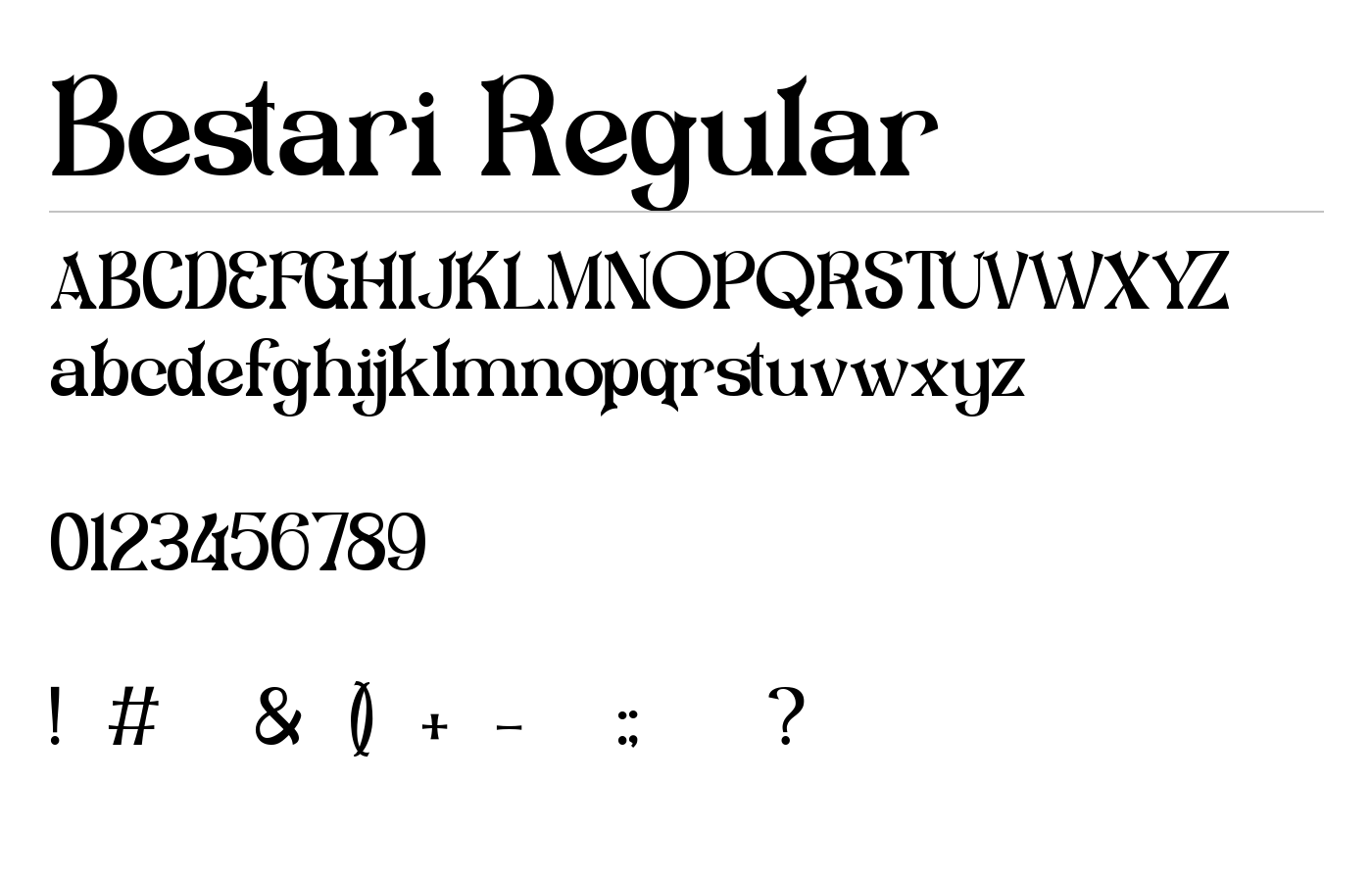
Bestari is a distinctive serif font with a vintage, almost gothic flair, characterized by its sharp, angular serifs and moderate stroke contrast. It features a medium weight and normal width, with elegant letterforms that blend traditional serif elements with a unique, stylized twist, making it ideal for creating a strong, memorable impact. This font works beautifully for logos, headlines, and branding that seek a classic yet bold personality with a touch of artistry.
Bestari Font
About Bestari Font